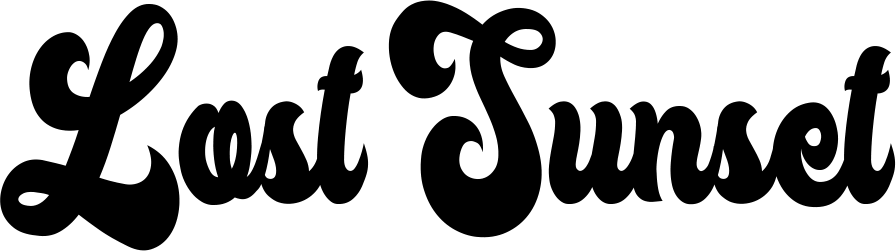
Lost Sunset Font
Lost Sunset font is one of the 90s cartoon font designs of the past decades that still has its territory of impression. This bold font does not support numbers, but instead, it promises to make your poster and flyer with sparkle elements as memorable as possible for your audience.
It is time that the new generation knows about nostalgic creations such as movie posters and flyers, with the help of this retro font.